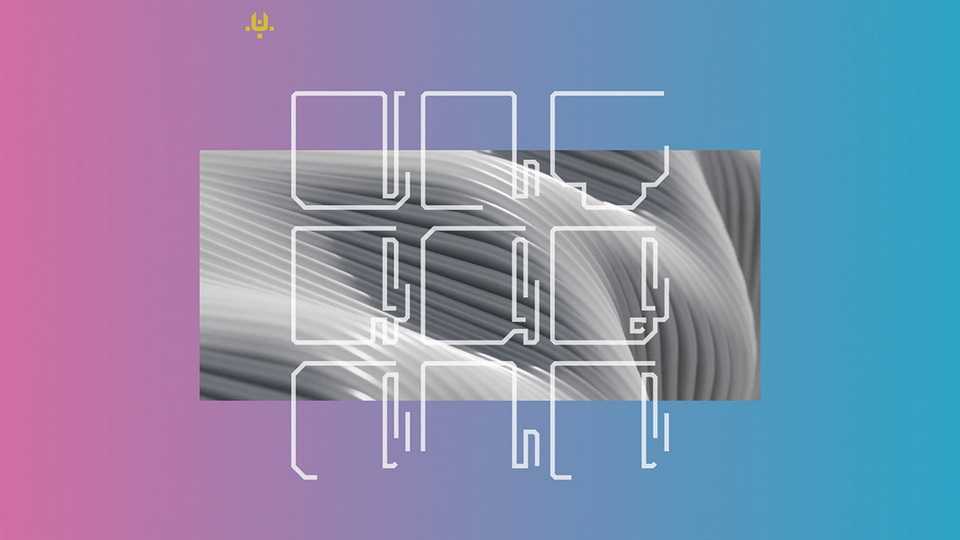
Download UltraSquared font, a display typeface designed after participating in the 36 days of type challenge. UltraSquared font is bold choice for posters, album covers, experimental identity and packaging, games, and editorial design.